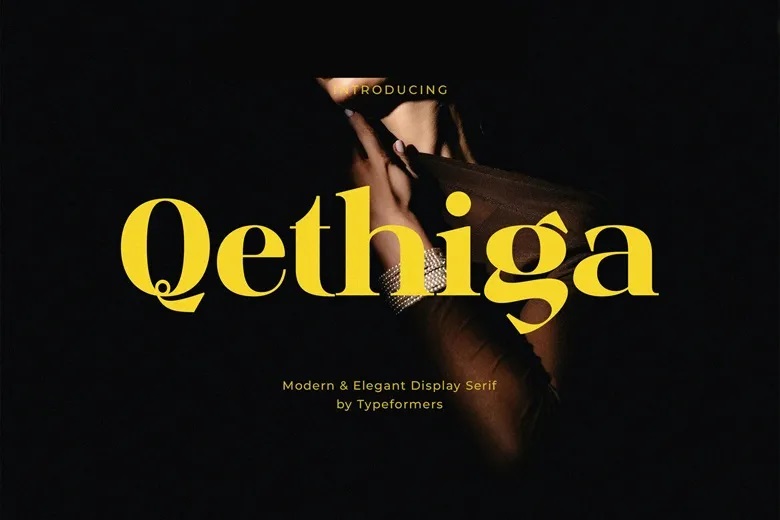
Qethiga Font
Qethiga is a wonderfully crafted serif font which has the beauty of modern elegance and the attractiveness of vintage charm. Qethiga is a distinct, stylish with its serifs and refined curves and can be use for logo design, web content.
On the hand, this font is excellent for everyone who wants to complement their branding, marketing and creative projects with sophistication and personality.
Qethiga Serif Font